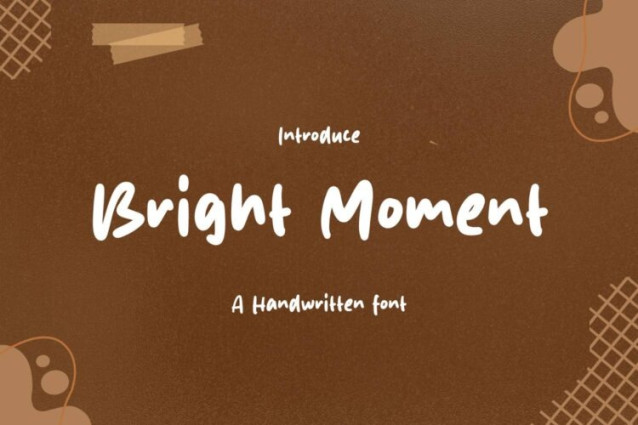
Bright Moment Font
Bright Moment Font is a simple and friendly handwritten font. Its natural and unique style makes it incredibly fitting to a large pool of designs. The only limit is your imagination!